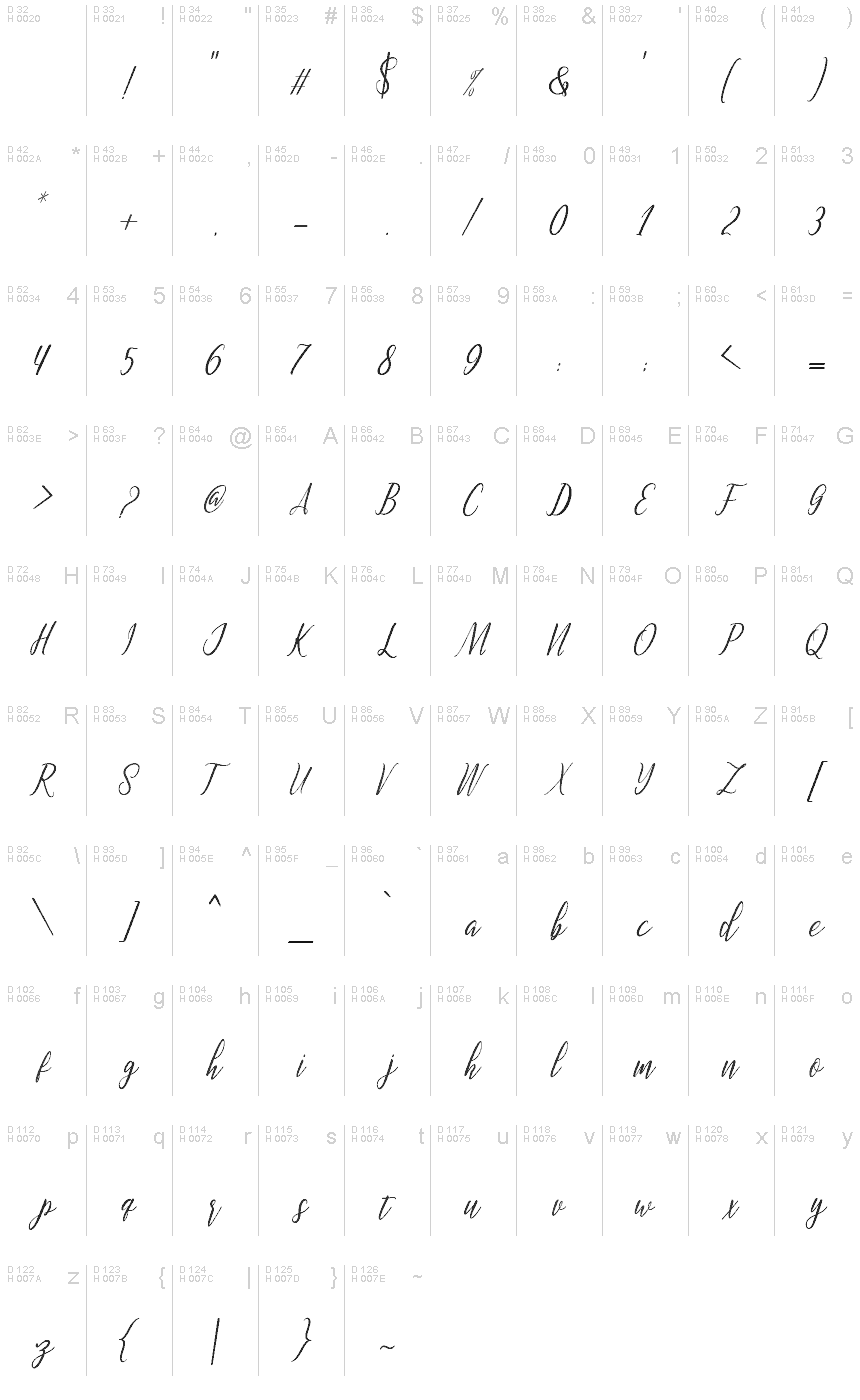
MontaliaScript
Hello world..!! this is Montalia Script, simple and easy to create awesome lettering, just type your words and then you will immediately see the great results.